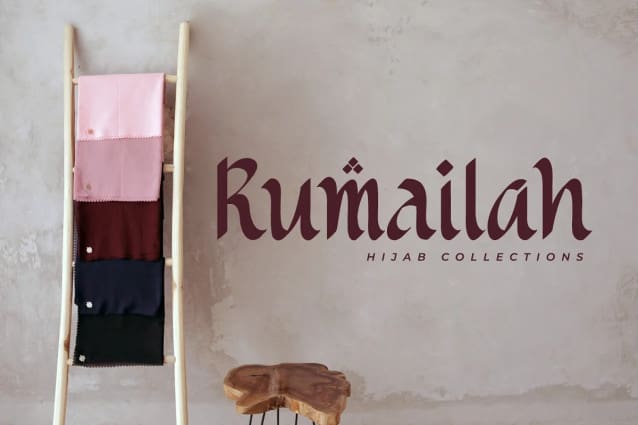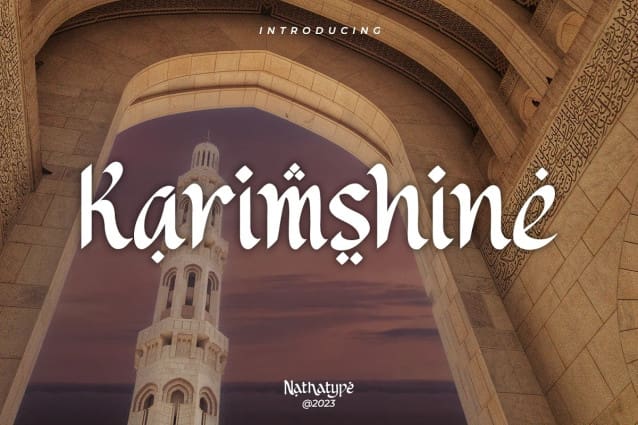
Karimshine Font
Karimshine Font, a captivating display font that seamlessly merges the artistry of Arabic script with modern design principles. Karimshine draws its inspiration from the graceful curves and strokes of Arabic calligraphy. It captures the essence of this artistic tradition, infusing each character with the timeless beauty of Arabic writing. The font retains the integrity of Arabic script while prioritizing readability through consistent proportions and low contrast.